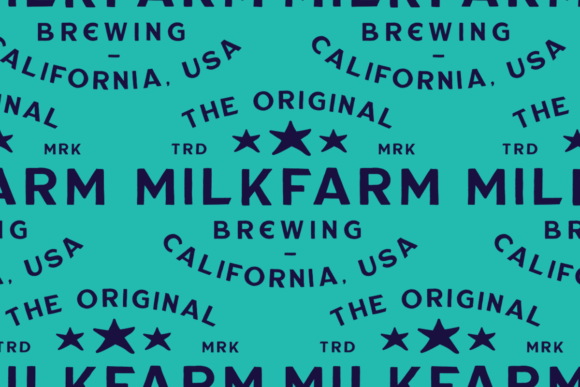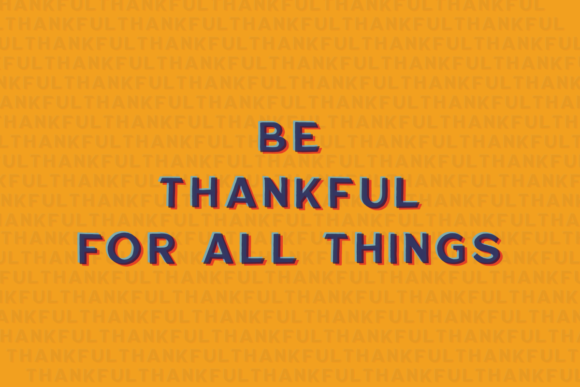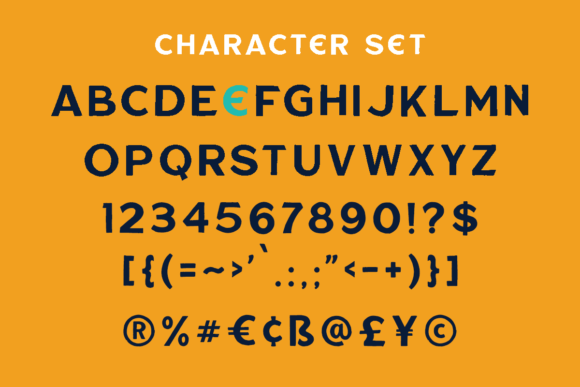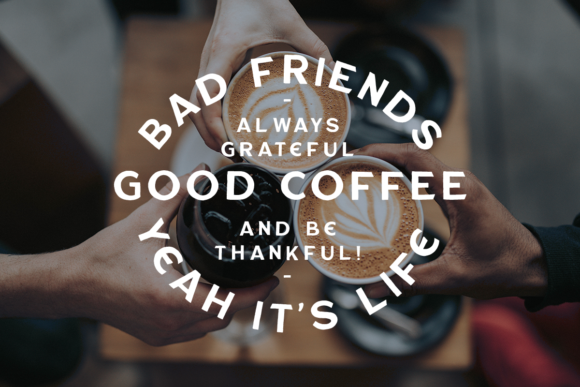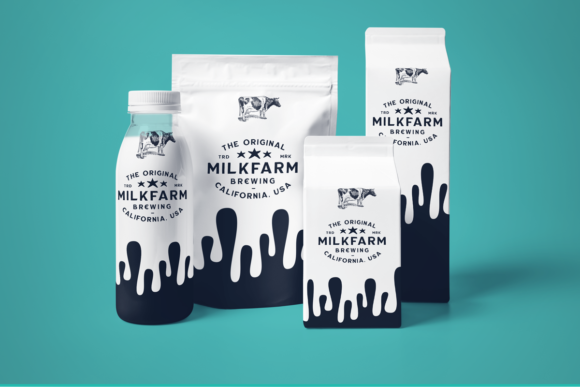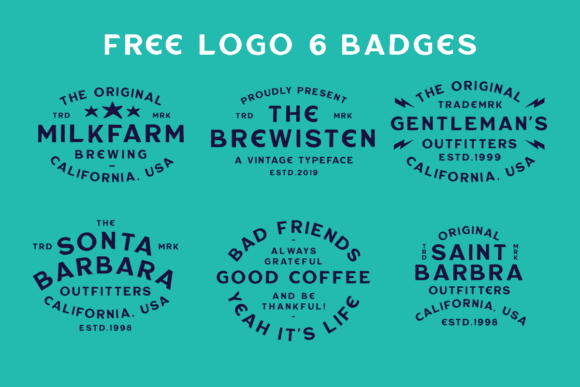
Brewisten Font: Elevate Your Design with Elegant Sans Serif
In the world of typography, fonts play a crucial role in conveying the tone and personality of a brand or design. For designers and crafters seeking a unique and sophisticated look, Brewisten Font is an excellent choice. This distinct, elegant sans serif font seamlessly blends traditional influences into a contemporary aesthetic, making it perfect for a wide range of design applications.
The Characteristics of Brewisten Font
Brewisten Font boasts well-balanced Latin details with distinctive contrasts, setting it apart from other sans serif fonts. Its elegant features are carefully crafted to provide a refined and subtle look, making it ideal for designs that require a touch of sophistication. The font’s versatility is one of its most notable attributes, allowing it to be used in various contexts, from digital media to print materials.
Design Applications for Brewisten Font
The uses for Brewisten Font are vast and varied. Here are a few design applications where this font truly shines:
- Branding and Logos: Create a lasting impression with a unique and memorable brand identity. Brewisten Font’s distinctive style ensures your logo stands out while conveying a sense of elegance and refinement.
- Digital Media: Enhance your website, social media, or digital advertising with a sophisticated font that captures the attention of your audience. Brewisten Font’s clean and modern aesthetic ensures seamless integration into any digital platform.
- Print Materials: From business cards to brochures, Brewisten Font adds a touch of luxury to any print material. Its elegant appearance elevates your design, making it perfect for high-end brands or special occasions.
- Packaging: Make your product stand out on store shelves with Brewisten Font’s unique and eye-catching style. Its versatility allows it to be used for a wide range of products, from cosmetics to gourmet foods.
Why Choose Brewisten Font?
Brewisten Font offers several advantages that make it an attractive choice for designers and crafters:
- Unique Aesthetic: Brewisten Font’s blend of traditional and contemporary elements creates a distinctive look that sets it apart from other fonts.
- Versatility: Its well-balanced design and elegant features make it suitable for a wide range of design applications.
- Legibility: Brewisten Font is designed to be easily readable, ensuring your message is conveyed clearly and effectively.
- Elegance: The font’s refined and subtle appearance adds a touch of sophistication to any design.
Tips for Using Brewisten Font
To get the most out of Brewisten Font, consider the following tips:
- Pair with Complementary Fonts: Combine Brewisten Font with other fonts that complement its elegant style. This will create a harmonious and visually appealing design.
- Experiment with Sizes and Colors: Play with different font sizes and colors to add depth and contrast to your design.
- Use for Headings and Titles: Brewisten Font is perfect for headings and titles, where its distinctive style can make a lasting impression.
Brewisten Font is a sophisticated and elegant sans serif font that offers a unique aesthetic for designers and crafters. Its versatility, legibility, and refined appearance make it perfect for a wide range of design applications. Whether you’re looking to create a memorable brand identity, enhance your digital media, or add a touch of luxury to your print materials, Brewisten Font is an excellent choice. With its distinctive contrasts and well-balanced design, Brewisten Font is sure to elevate your design and leave a lasting impression.